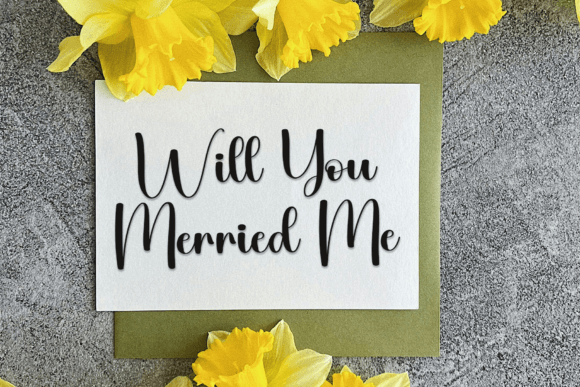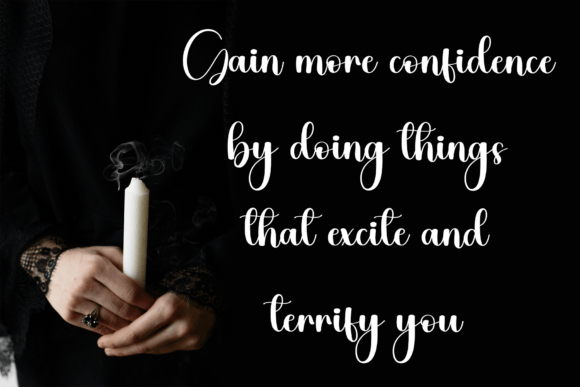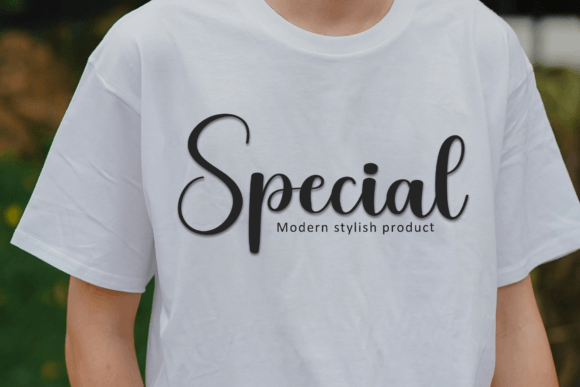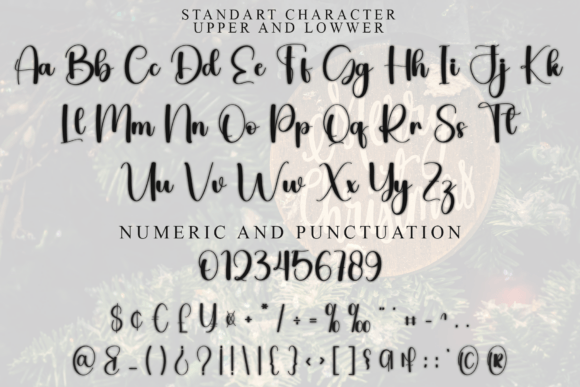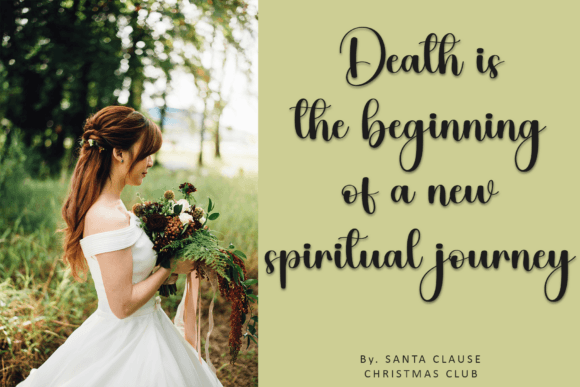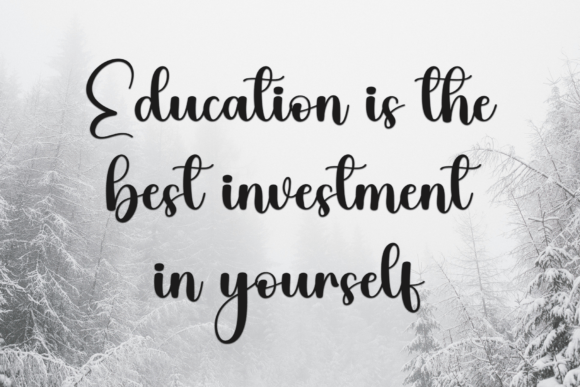
Introduction to Santa Dreaming Font
Santa Dreaming is a playful and festive script font.
It has smooth, flowing letters that look like handwriting, perfect for Christmas decorations, cards, or gifts The style feels cozy and cheerful, like Santaโs handwriting.
Key Features of Santa Dreaming Font